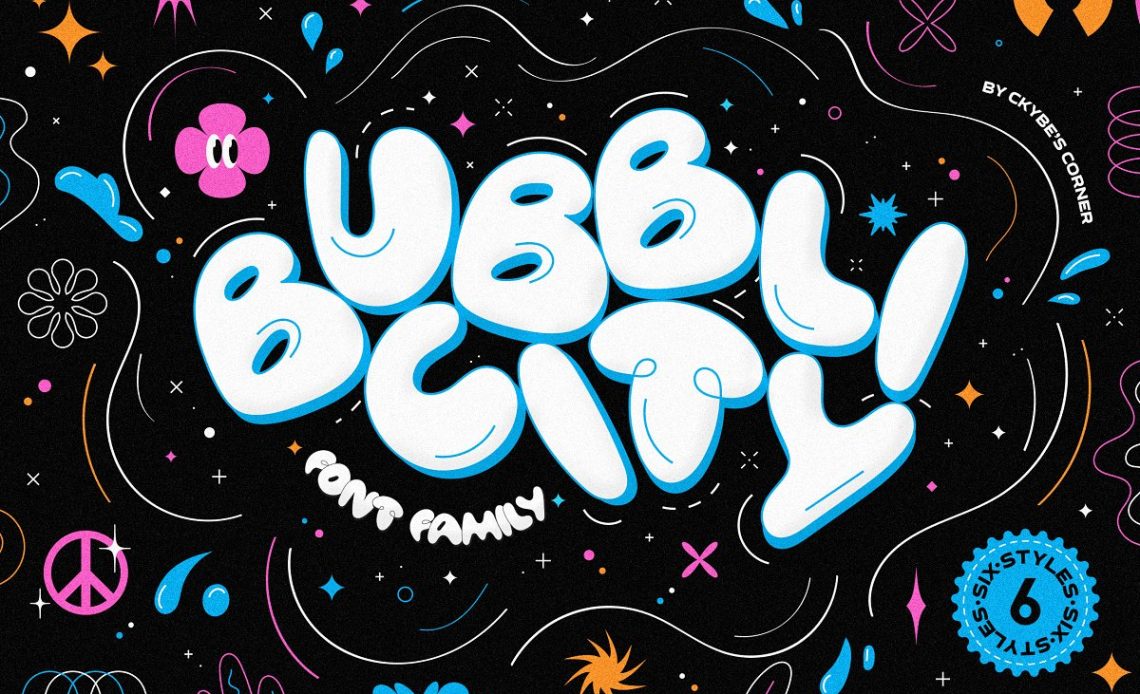
Welcome to Bubblicity, the best bubble font family for letters on Reddit! This playful font family, created by Artem Demidenko, is inspired by the sweet 90s and 2000s period and street graffiti combined with line elements. With 6 styles including color ones, Bubblicity offers a lot of opportunities to create eye-catching designs.
The Bubblicity font family is perfect for posters, invitations, social media posts, and other art stuff. You can even use it as a logo! Each letter perfectly overlaps each other, giving you the freedom to play with spacing and experiment with multiply blending options and color changing in hue/saturation. The bevel and emboss options also offer additional creativity for your designs.
Bubblicity comes in 3 variations: Regular, Regular Shadow, and Regular Special. In addition, you can choose from 3 color options: Pinky, Blue Special, and Tar. All options come with upper and lower case letters, numbers, symbols, and punctuation, making it multilingual and versatile.